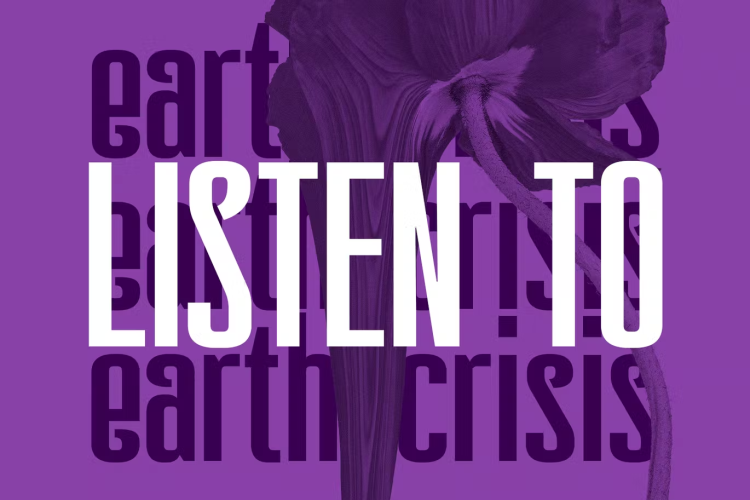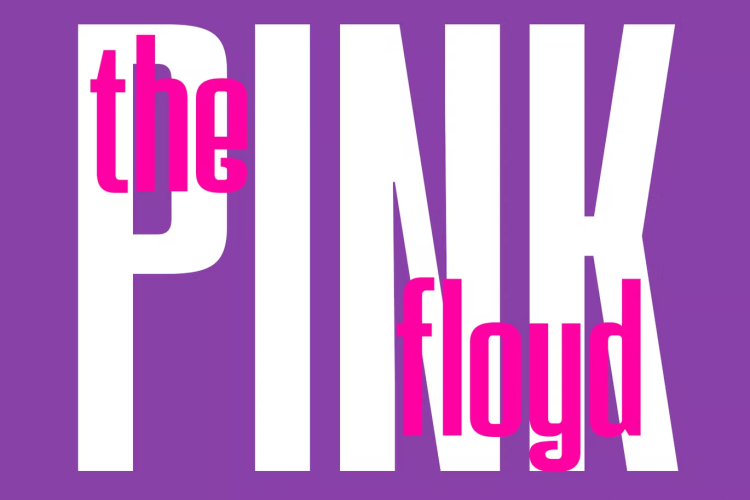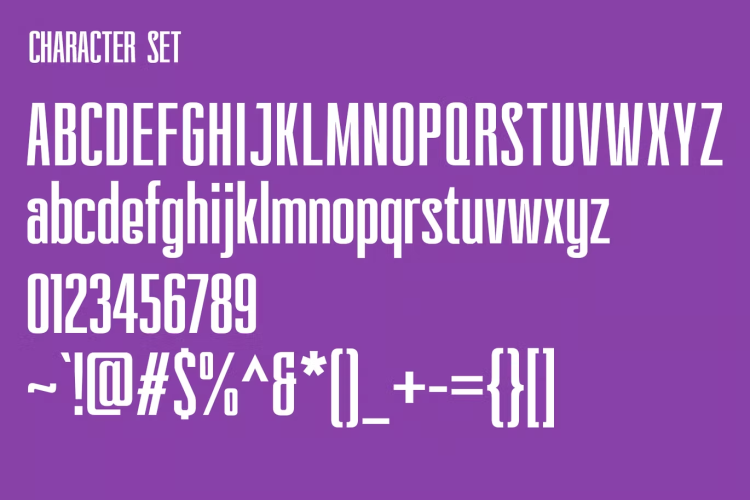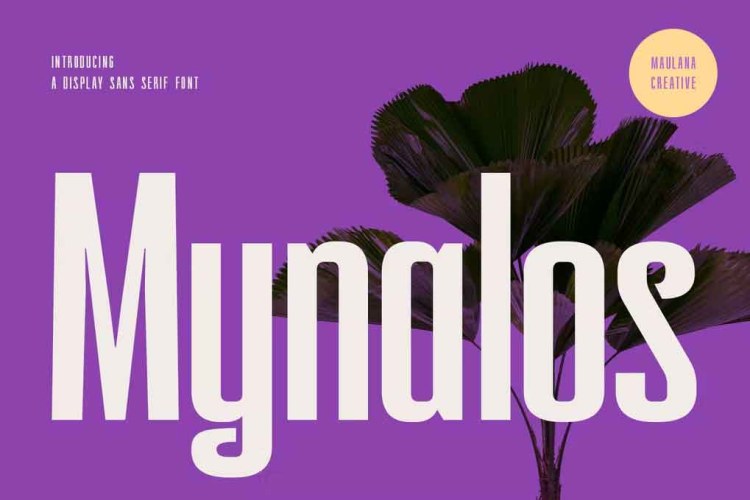
Mynalos Display Font
Mynalos is a condensed sans serif font. With bold tall sharp edge stroke, fun character with a bit of ligatures and alternates. To give you an extra creative work. Mynal…
Character set · 360 glyphs
Mynalos is a condensed sans serif font. With bold tall sharp edge stroke, fun character with a bit of ligatures and alternates. To give you an extra creative work. Mynalos font support multilingual more than 100+ language. This font is good for logo design, Social media, Movie Titles, Books Titles, a short text even a long text letter and good for your secondary text font with sans or serif. Make a stunning work with Mynalos font.
Where Mynalos Display Font works best
Mynalos Display Font keeps its shape at 14 and 16 pixels, which is where interface text actually lives. Numbers and capitals stay distinguishable in tables.
Presentations are read at a distance; a clean sans with a strong bold is the safest hierarchy you can build in a hurry.
Simple letterforms survive angles, glare and movement, so Mynalos Display Font suits door signs, menus boards and exhibition panels.
What kind of work does Mynalos Display Font suit?
It sits in the Sans Serif Fonts group and reads as bold, condensed, creative, display. That makes it a candidate wherever those qualities help: headings, packaging, social graphics and brand work. Set it at the size you plan to use before deciding.